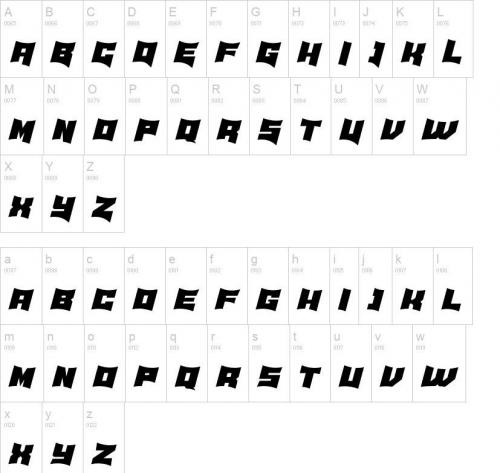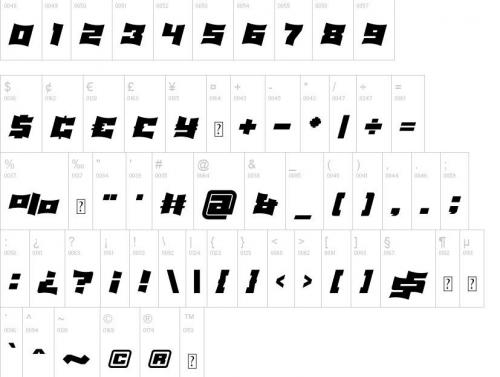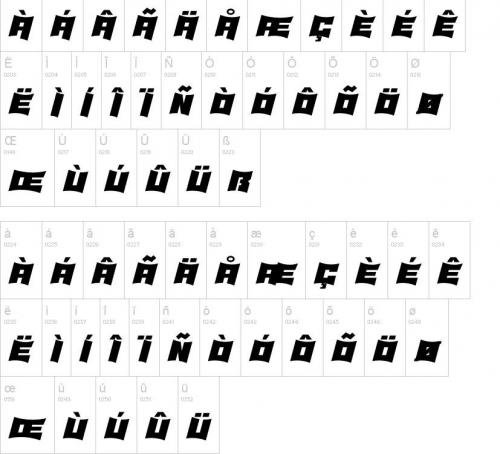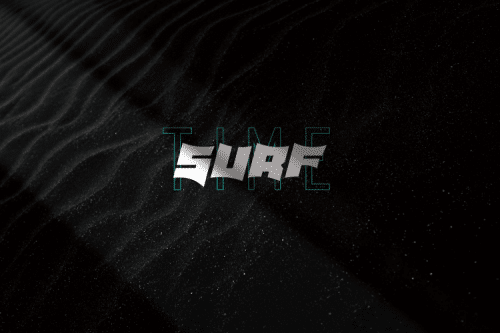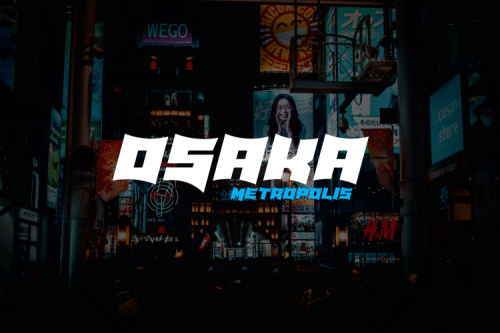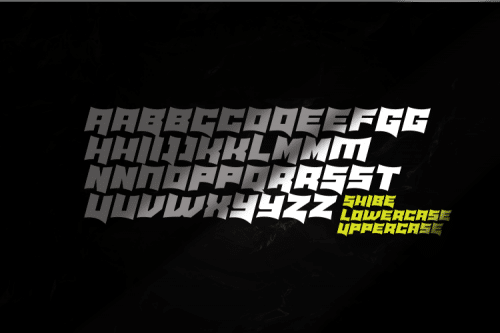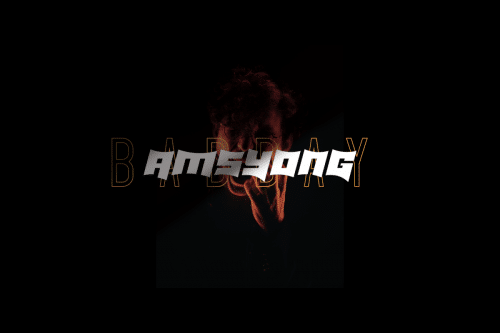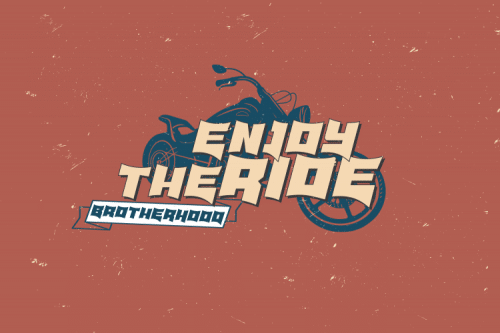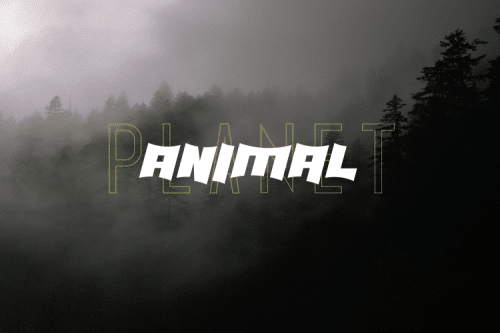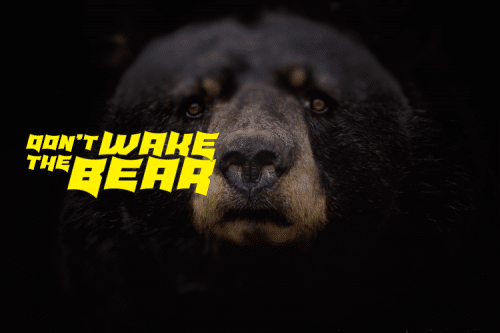
Shibe – Bold italic font, has a strong, sharp character, and is combined with the font graffiti styles. To make a beautiful combination, simply mix upper and lower case and mix with alternative glyphs
- Designer: Line creative